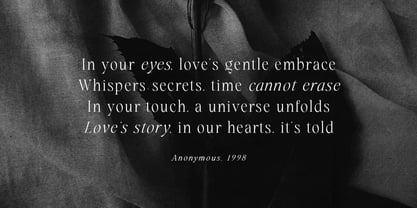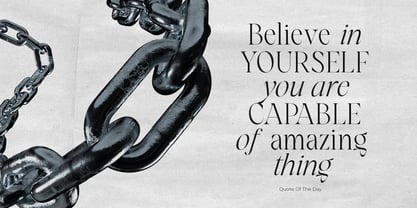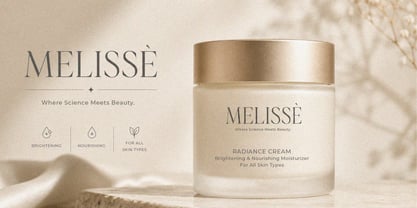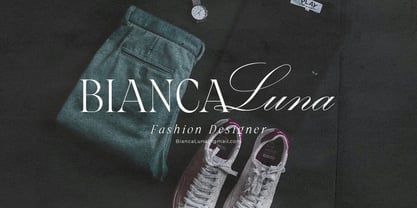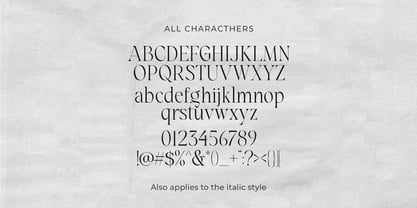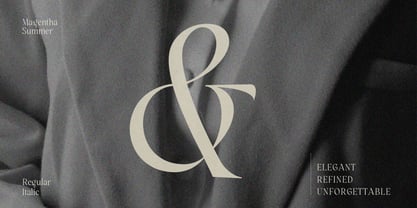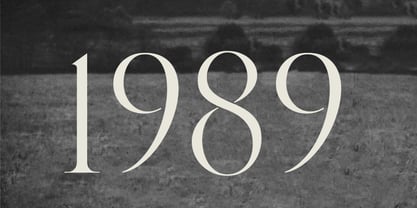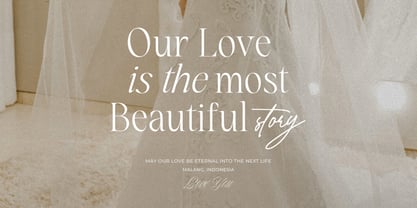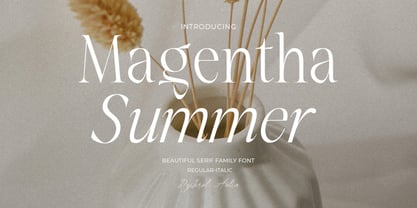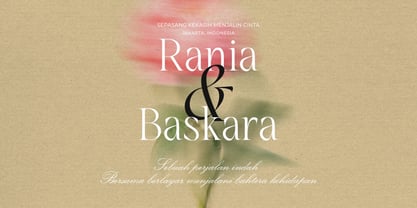
Magentha Summer
Magentha Summer-Serif Family
The "Magentha Summer" font family epitomizes beauty and elegance in every character. With two distinct styles, Regular and Italic, this font is the perfect choice to infuse sophistication into your design projects.
Key Features: Elegance and Beauty: Magentha Summer has been meticulously crafted to ensure each letter is visually captivating. It's an ideal choice for creating stunning quotes and long paragraphs in your designs.
Feminine Appeal: This font is perfectly suited for designs with a feminine touch, such as fashion, magazines, and logos with a simple yet enchanting design.
Artistic Pairings: Magentha Summer seamlessly complements script fonts, enhancing the artistic appeal of your projects. Combine these two font styles to create unique and attention-grabbing designs.
Recommended Uses:
Inspirational Quote Designs: Use Magentha Summer to create motivational and inspirational quotes for social media, posters, or merchandise.
Fashion and Magazine Design: Magentha Summer is the perfect choice to create a luxurious and feminine look in magazine layouts and fashion promotions.
Simple and Classy Logos: Craft simple yet character-filled logos using Magentha Summer to represent your brand with unmatched style.
Magentha Summer is the perfect fusion of beauty and functionality, elevating your design projects to the next level. With this font, you'll be able to create impressive and captivating works. Get Magentha Summer today and start making your design projects stand out.